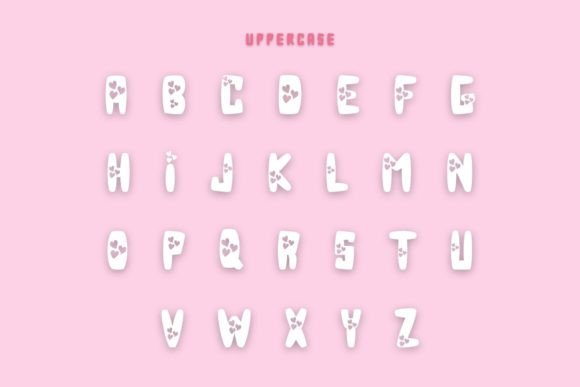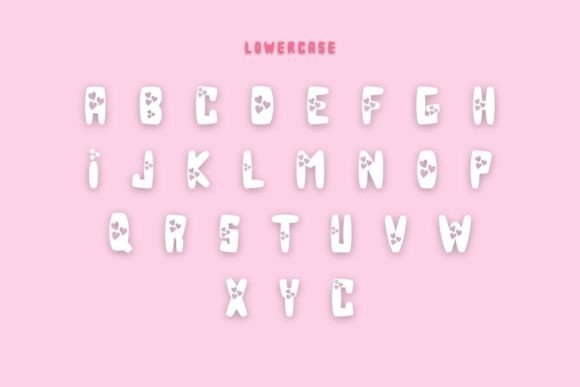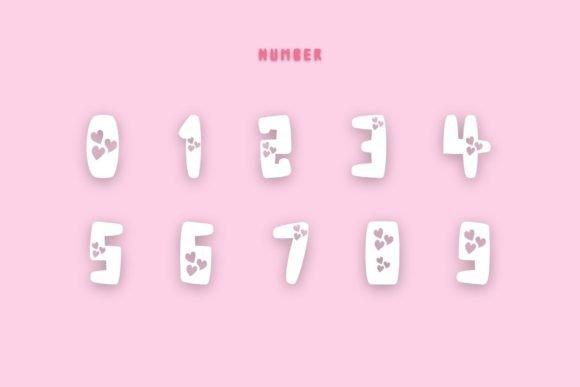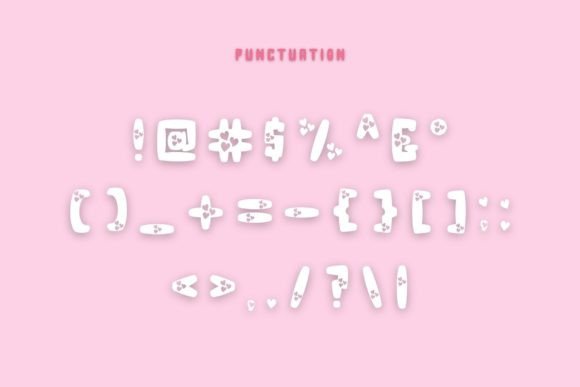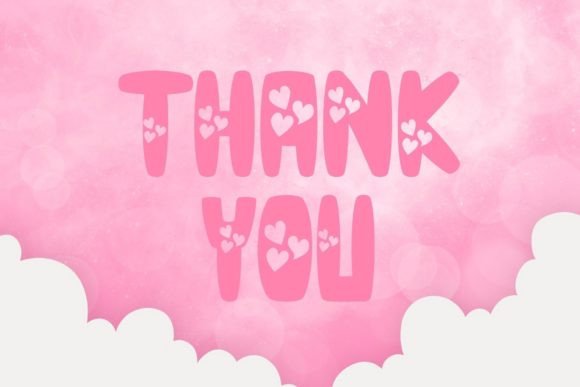
Introduction to Many Heart Font
Have you ever been stuck on a creative project, struggling to find the perfect font to convey the right message? For designers, this is a common challenge, especially when working on projects that require a touch of personality and whimsy. That’s where the Many Heart Font comes in – a delightful and playful font that’s sure to bring a smile to your face and add a dash of authenticity to your designs.
As a valuable design resource, the Many Heart Font is perfect for a wide range of creative projects, from blog posts and logos to branding, ads, and invitations. Its high-quality design makes it a great choice for those looking to add a touch of elegance and sophistication to their work. Plus, with a transparent background, you can easily layer it over other design elements to create a visually striking effect.
Key Features of Many Heart Font
- High-quality vector design, ideal for creative projects and designs
- Designed with a unique, hand-drawn style that adds a touch of warmth and personality to any design
Honest Review: Many Heart Font
One of the standout features of the Many Heart Font is its high quality and versatility. It’s perfect for adding a touch of whimsy and personality to your designs. ✨ The font includes a wide range of characters and symbols, making it suitable for various design applications.
The Many Heart Font features a transparent background, which makes it easy to use on different backgrounds and maintain a clean design. This is a great design resource for anyone looking to add a unique touch to their work.
- High-quality and versatile font
- Wide range of characters and symbols
- ⚠️ Limited font styles and variations
Overall, I’m impressed with the Many Heart Font. While it may have some limitations, it’s a great design resource for personal projects or small-scale designs. It’s a wonderful addition to any creative project, and I’m happy to recommend it to fellow designers.
Common Use Cases for Many Heart Font
The Many Heart Font is ideal for a variety of design projects, including wedding invitations, baby shower invitations, and Valentine’s Day cards. Its unique design and high quality make it a great choice for any creative project.